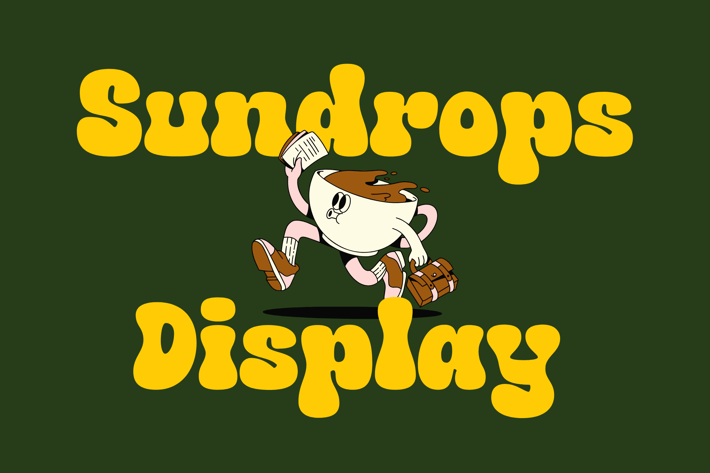
Sundrops Display - Modern Retro Font
Say hello to Sundrops Display - the font that effortlessly fuses old-school retro vibes with a modern twist. It's like taking a step back in time, but with a cool, contemporary edge.
This font is all about those chunky, fat letters that scream "I've got style!" The rounded touch? It adds a bit of fun to the mix. So, whether you're jazzing up a social media poster, creating a groovy website, or adding some oomph to your digital branding, Sundrops Display has your back.
Think of it as your secret sauce for design projects. It's perfect for those moments when you want a hint of vintage nostalgia but still want to keep it fresh and funky. Sundrops Display - making your designs pop with a dash of old-school cool and a pinch of modern pizzazz.